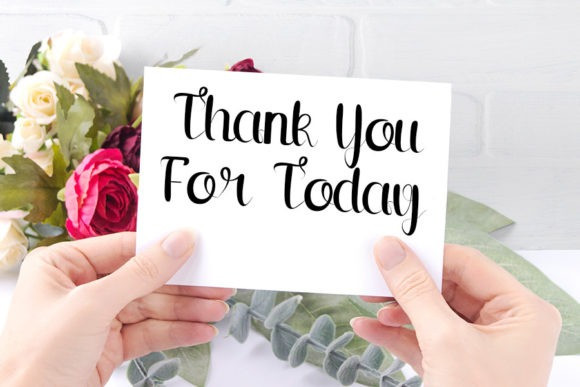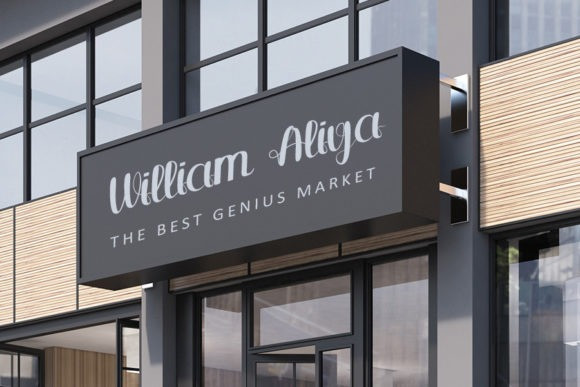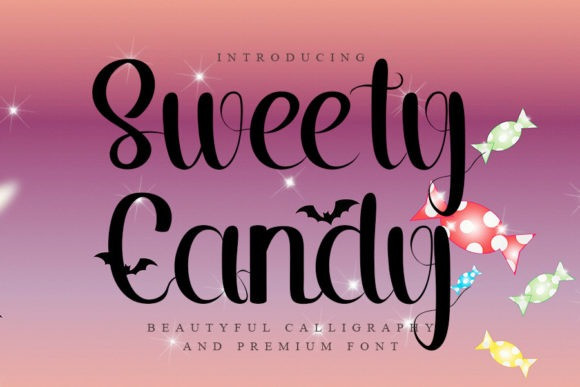
Sweety Candy Font
Sweety Candy Script Font is a lovely and timeless handwritten font. It is the best choice for creating eye catching logos, branding and quotes. Every letter has a unique and beautiful touch, which will make your design come alive!